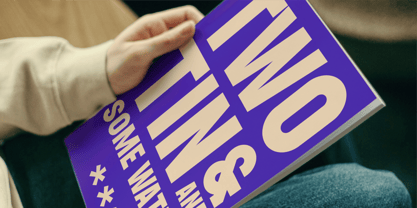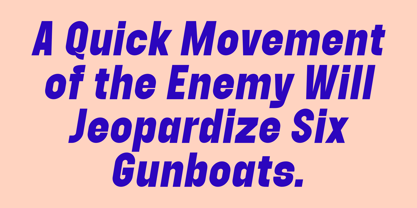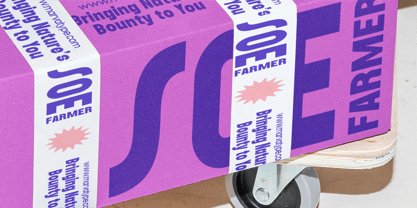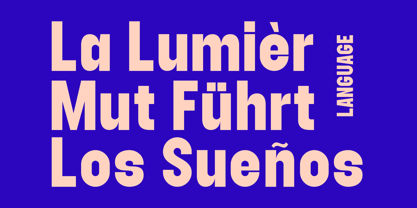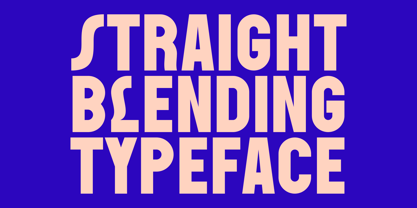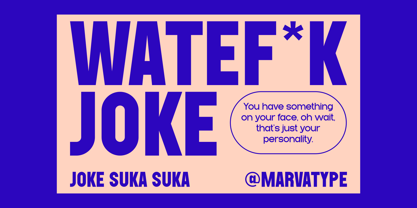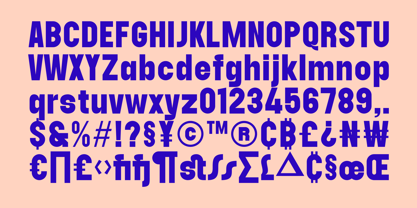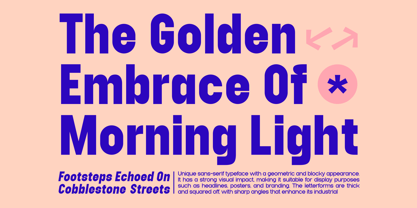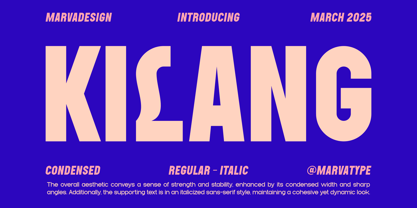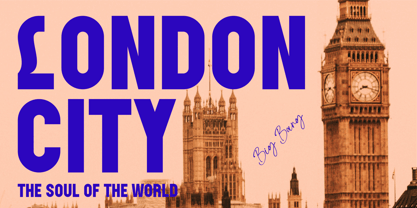
Kilang
The Kilang Font Family was designed by Febrie Setiawan and published by Marvadesign. Kilang contains 2 styles and family package options. More about this family
Introducing New Condensed Sans Serif
Name Font Is KILANG. KILANG is a bold, solid sans-serif typeface with a geometric, blocky structure. The typeface conveys a strong, stable feel, emphasized by its sharp angles and square letterforms. The solid width enhances its visual impact, making it ideal for display purposes such as headlines, posters, and branding. Additionally, the typeface is available in both regular and italic styles, with the italic version maintaining a cohesive yet dynamic look. Supporting text follows the italic sans-serif style, complementing the overall aesthetic with a modern, industrial feel.